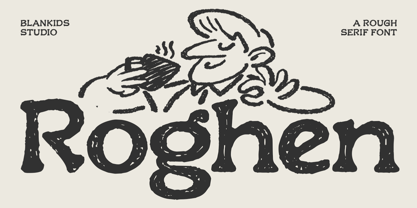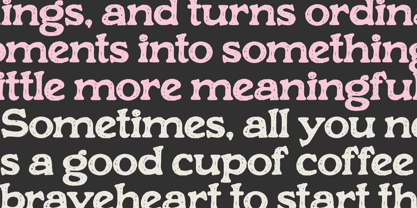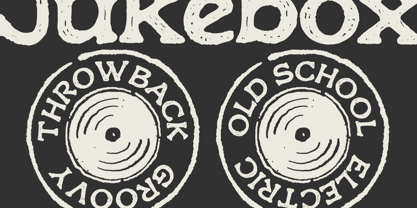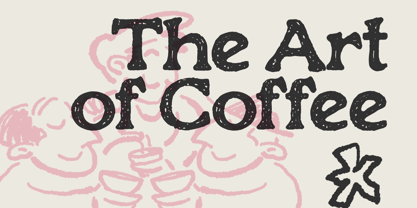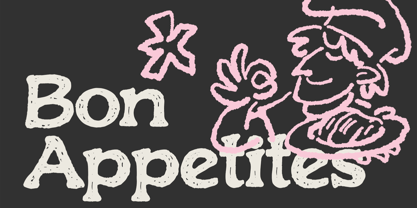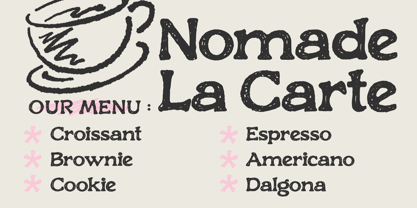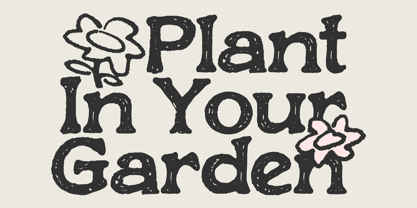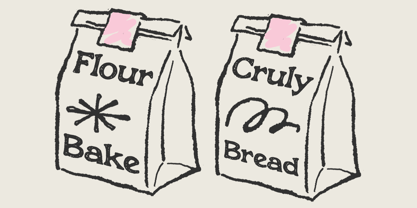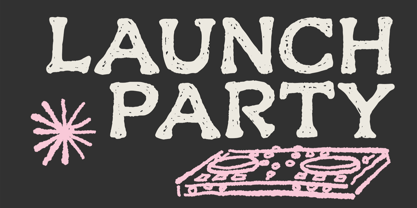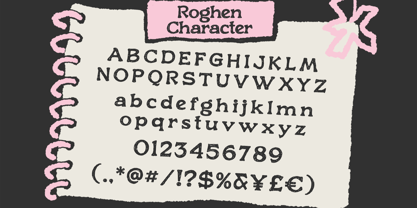
Roghen
por Blankids
La familia tipográfica Roghen fue diseñada por Bangkit Tri Setiadi y publicada por Blankids. Roghen contiene 1 estilos. Más información sobre esta familia
Roghen is a bold rough serif display font crafted to bring personality, texture, and expressive charm into your creative projects. Inspired by hand-drawn lettering and vintage print aesthetics, Roghen combines organic imperfections with strong serif structure creating a look that feels raw, warm, and full of character. Designed for creatives who want something authentic and eye-catching, Roghen delivers a handcrafted feel while maintaining excellent readability. The subtle rough texture gives your typography a natural, imperfect, and artistic edge perfect for brands that want to stand out with a bold and playful identity. Whether you're designing for lifestyle brands, food packaging, event posters, social media graphics, or editorial headlines, Roghen brings a distinctive vintage-modern balance that feels both nostalgic and fresh.
Diseñadores: Bangkit Tri Setiadi
Fundición actual: Blankids